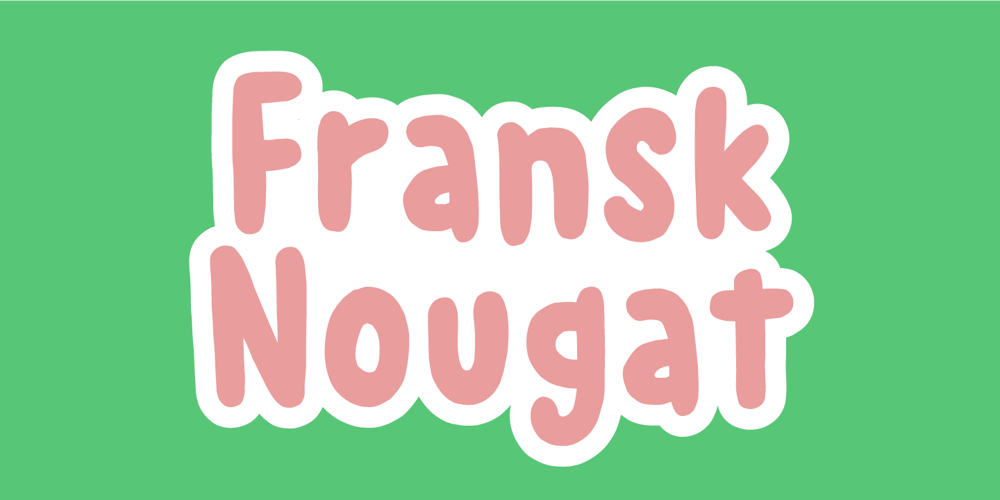
Fransk Nougat Font Family was designed by Jakob Fischer and published by Bogstav. Fransk Nougat contains 2 styles and family package options. Let me tell you a secret: This font has got absolutely nothing to do with nougat or France. I just love nougat, and I actually ate some while finishing this font!My wife is a good at making cakes, and lucky for me is that she too adores nougat – that way I often get delicious cakes with nougat :)Well, back to the font – a handmade rounded sans-serif, comic, organic, all-purpose with a playful attitude. Goes very well in both UPPERCASE and lowercase. I’d say you can use this for pretty much anything, but categories such as organic, packaging, kids product or sweets come in mind!